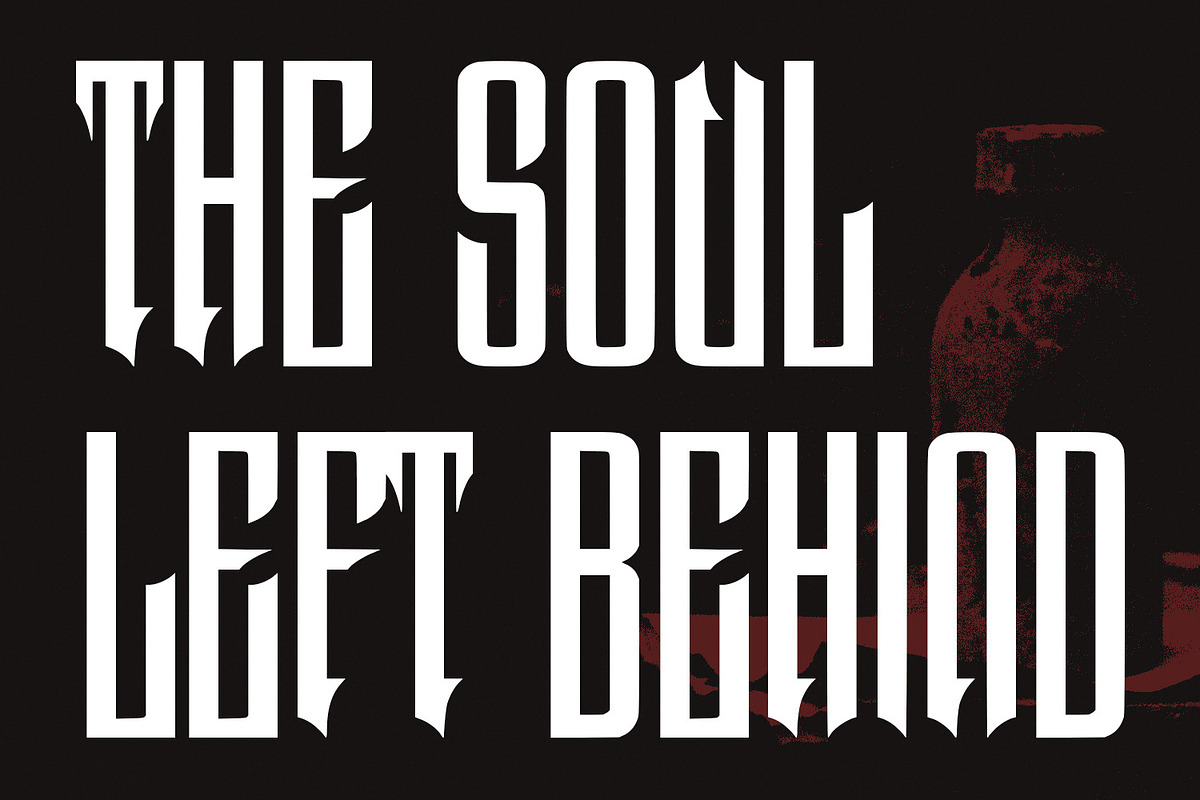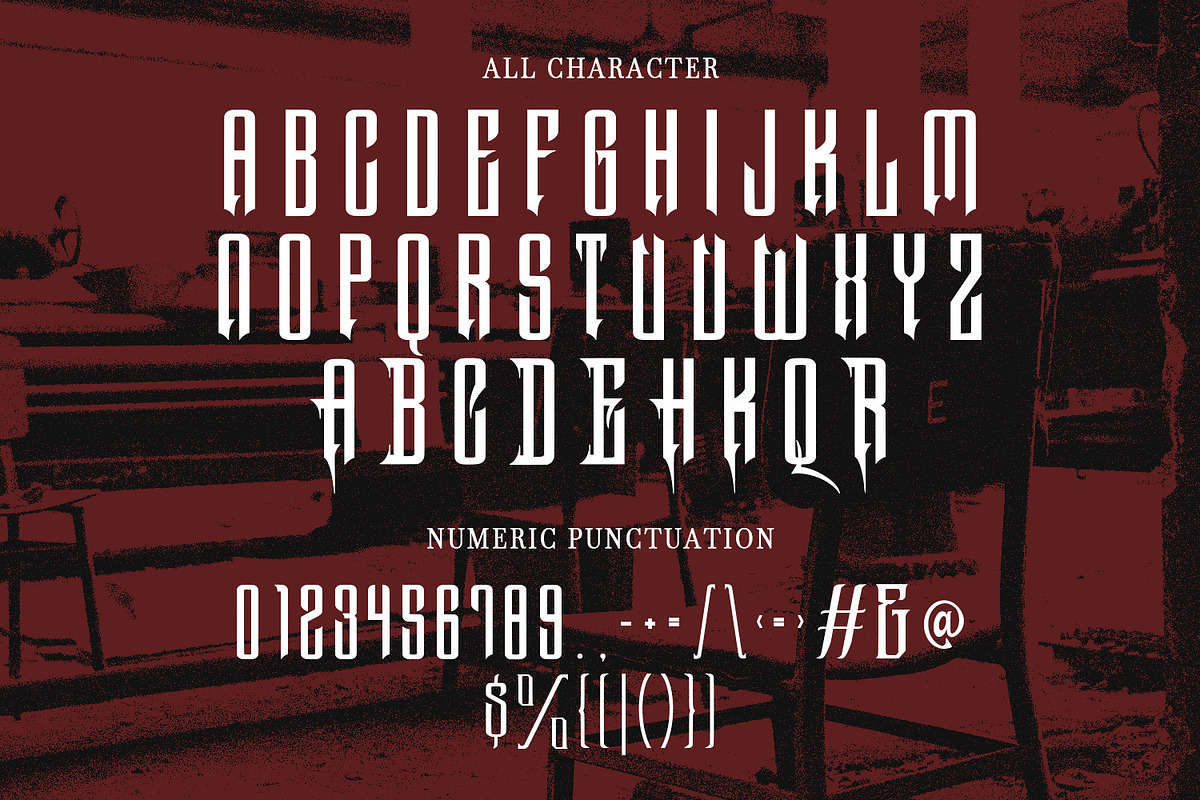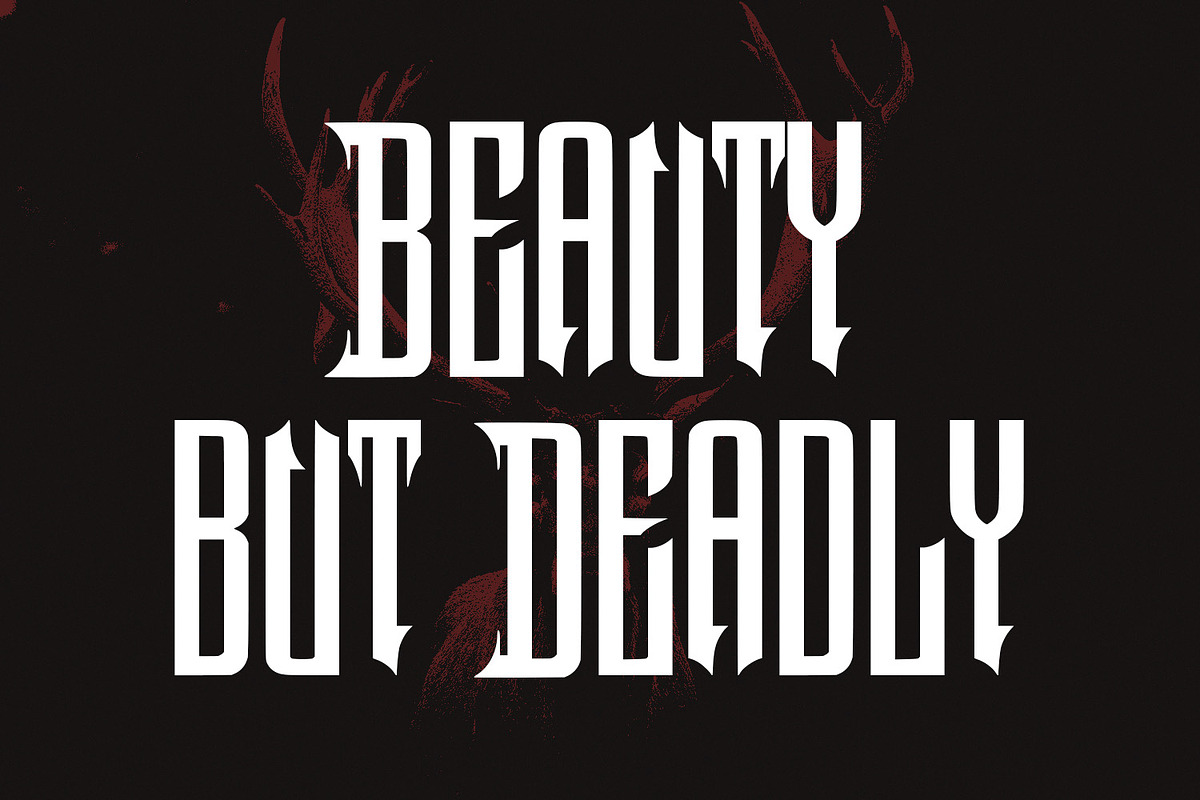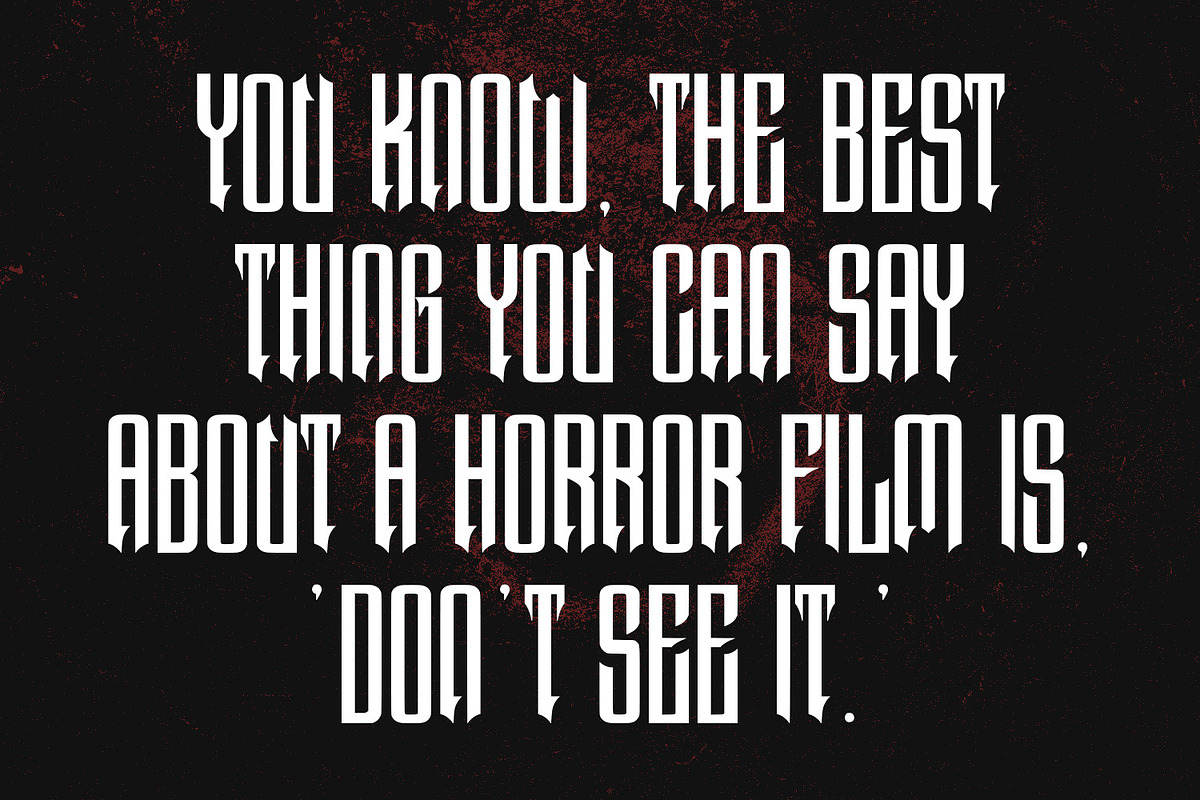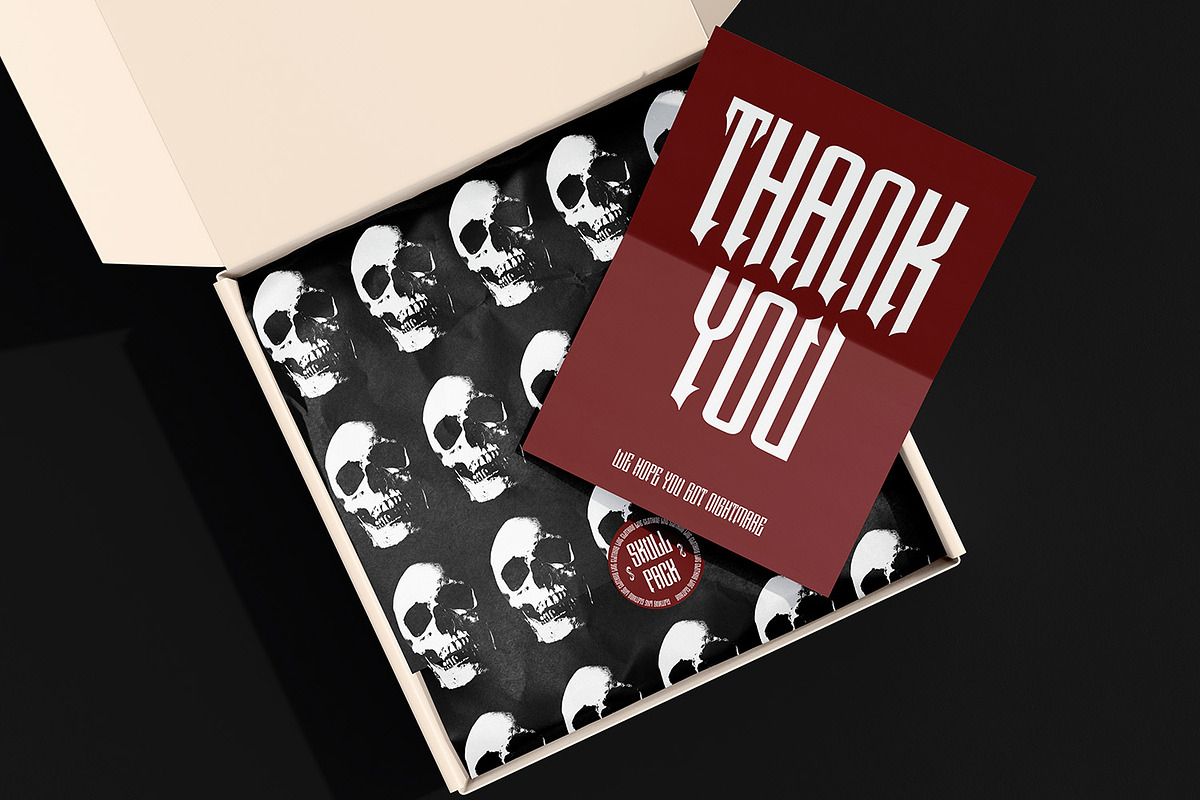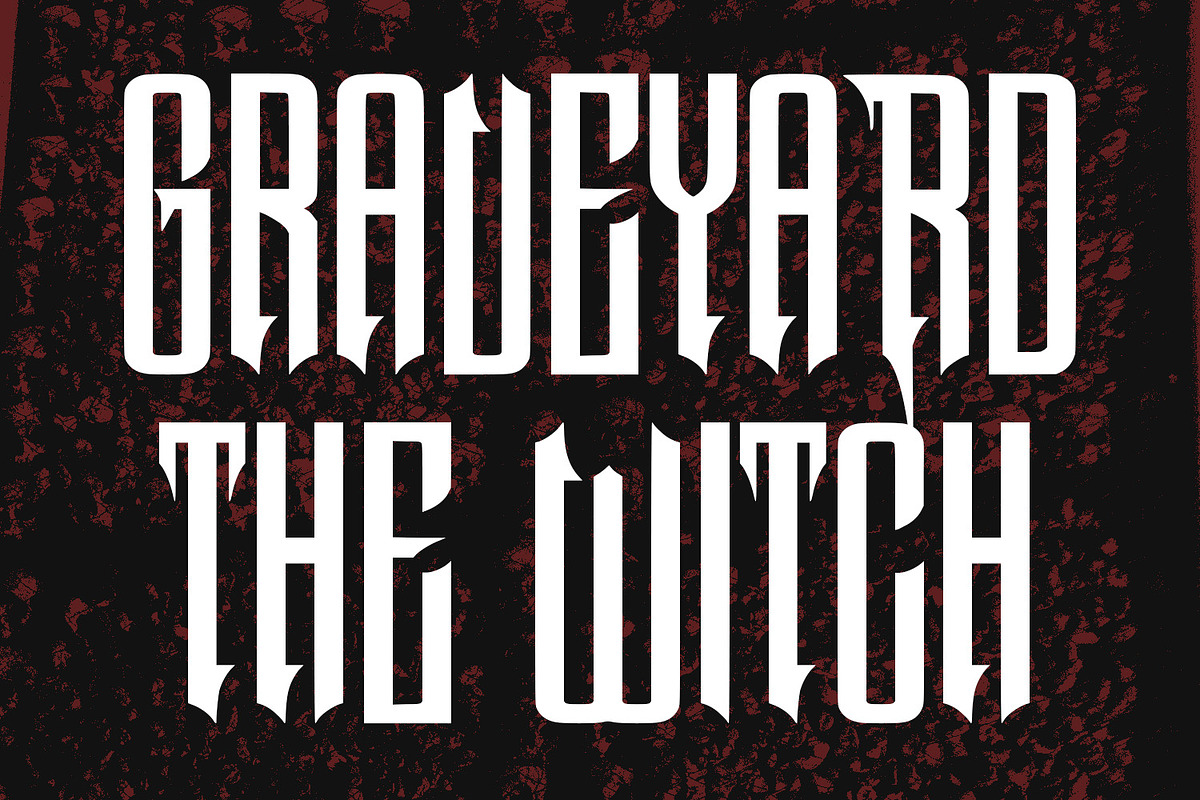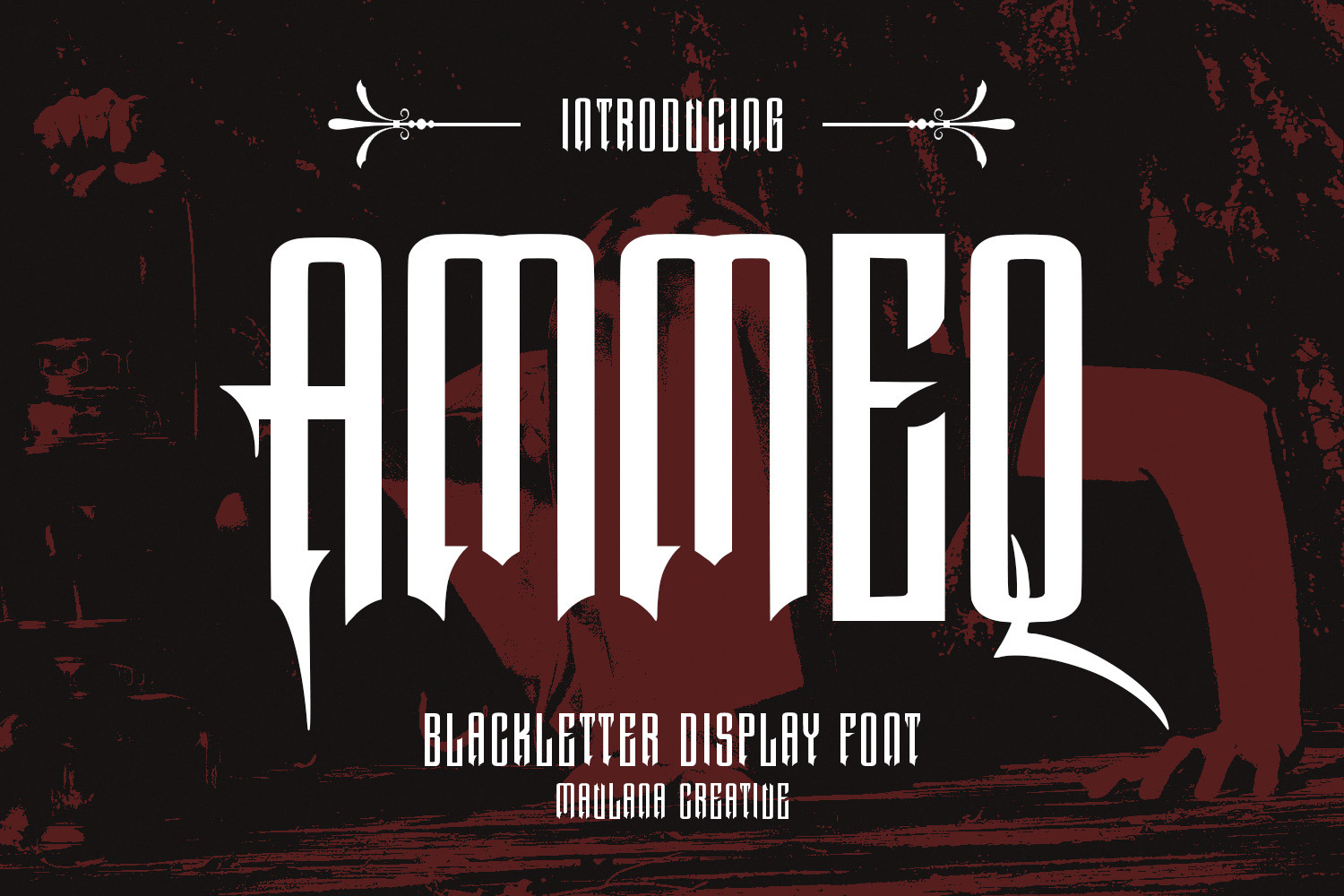
Ammeq Blackletter Font
Introducing Ammeq Blackletter Typeface Font.
Ammeq Blackletter Font is a handmade Modern Victorian handlettering, which is combining modern and classic typography with some awesome alternates. Yes we back to early 1800s, bring classic touch on this decade.